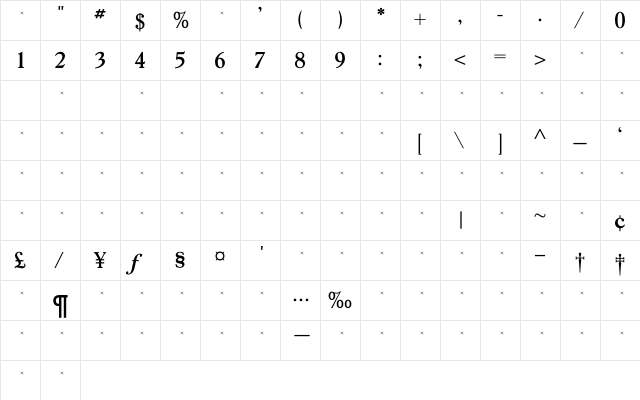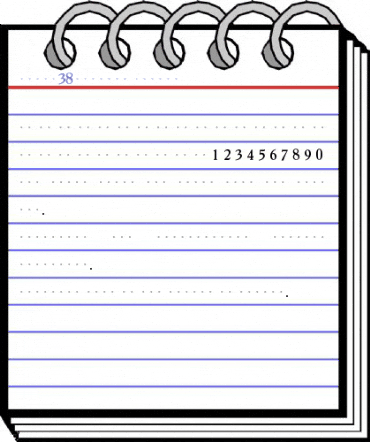
GoudY38BoldTab Regular
Design Context for GoudY38BoldTab
GoudY38BoldTab is a composed and adaptable typeface that performs quietly and consistently across a wide range of design contexts. Its bold stroke weight gives it real presence on the page.
Pro Tip: Use GoudY38BoldTab in both headline and body roles to test its range before committing to a single application.